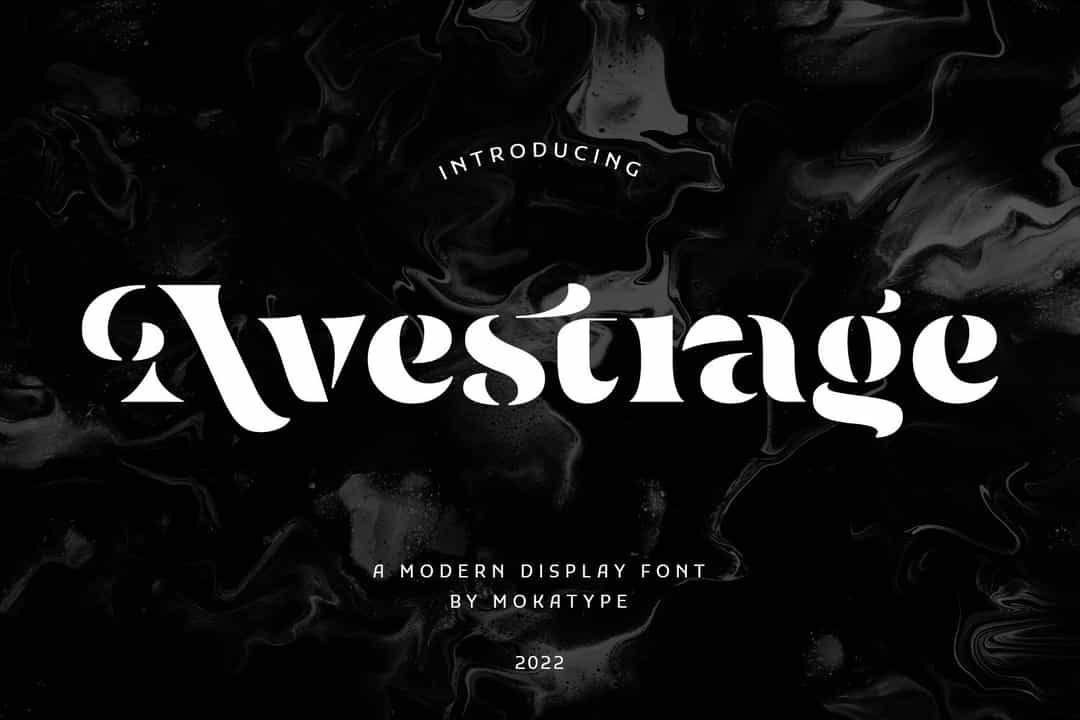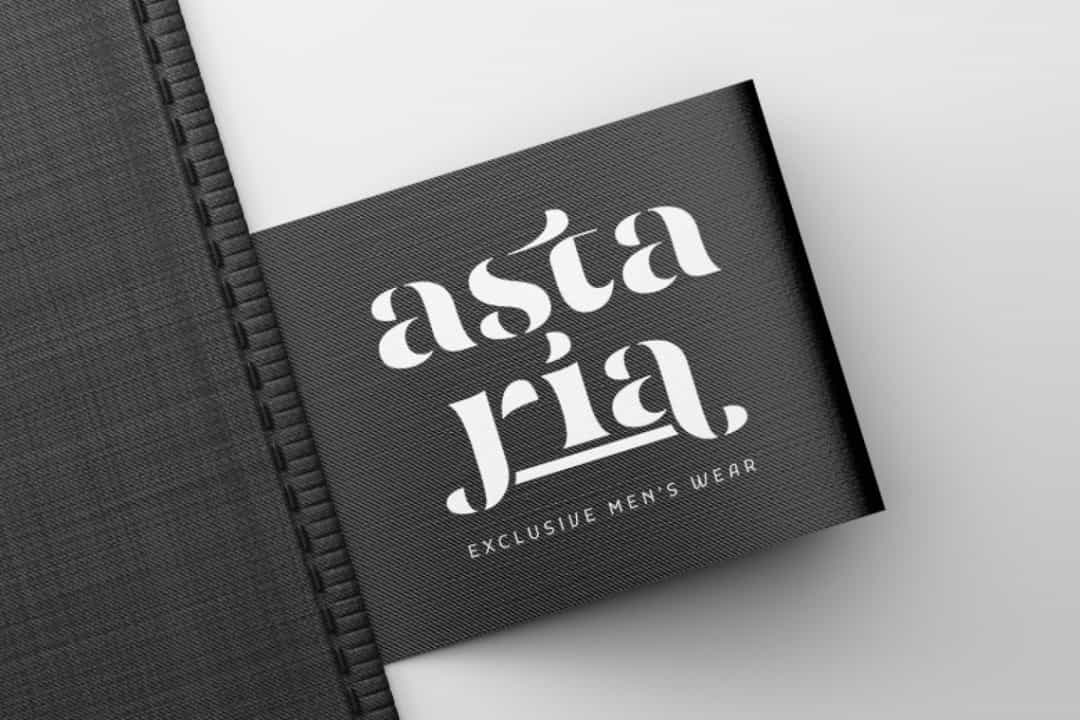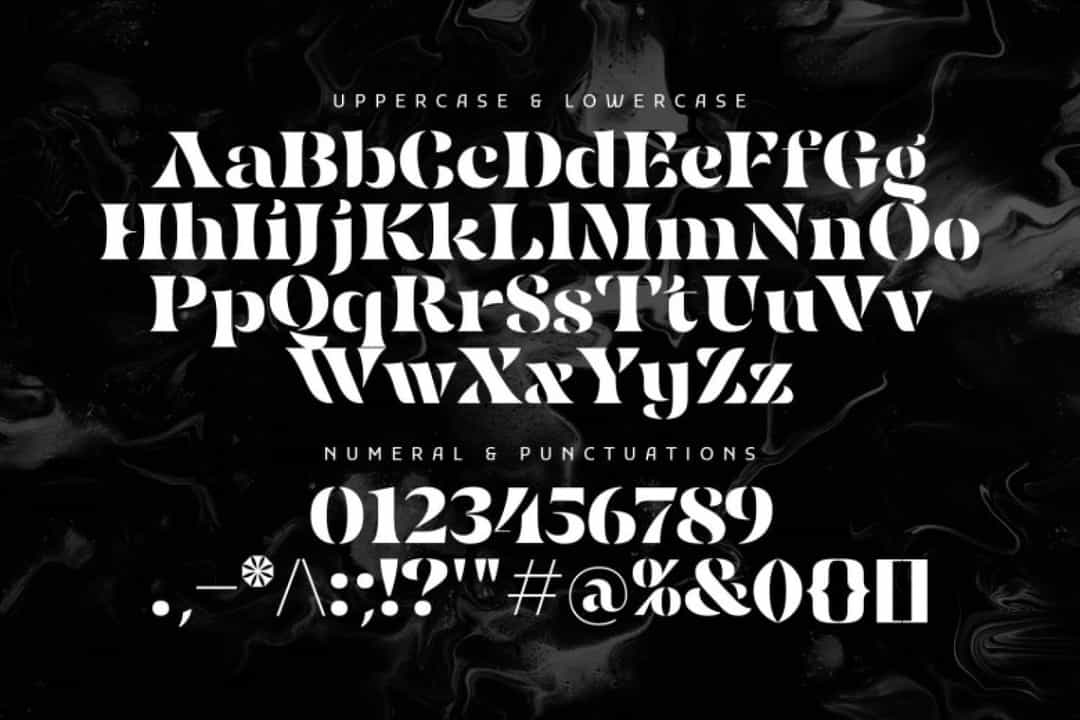
Discover Avestrage Font, part of the Serif Display collection—a versatile and unique font perfect for adding a personal touch to your projects. Download it for free and enjoy crafting designs with style, from invitations to social media posts. This font is available exclusively for personal use, giving you the freedom to create without limits. Unlock your creativity with Avestrage Font today!
Avestrage is an impressive screen serif typeface featuring an attractive fashion-inspired design and many ligatures and alternates that will help make you appear appealing. This font can be used in modern or retro designs; its versatility even lends itself to retro styles!